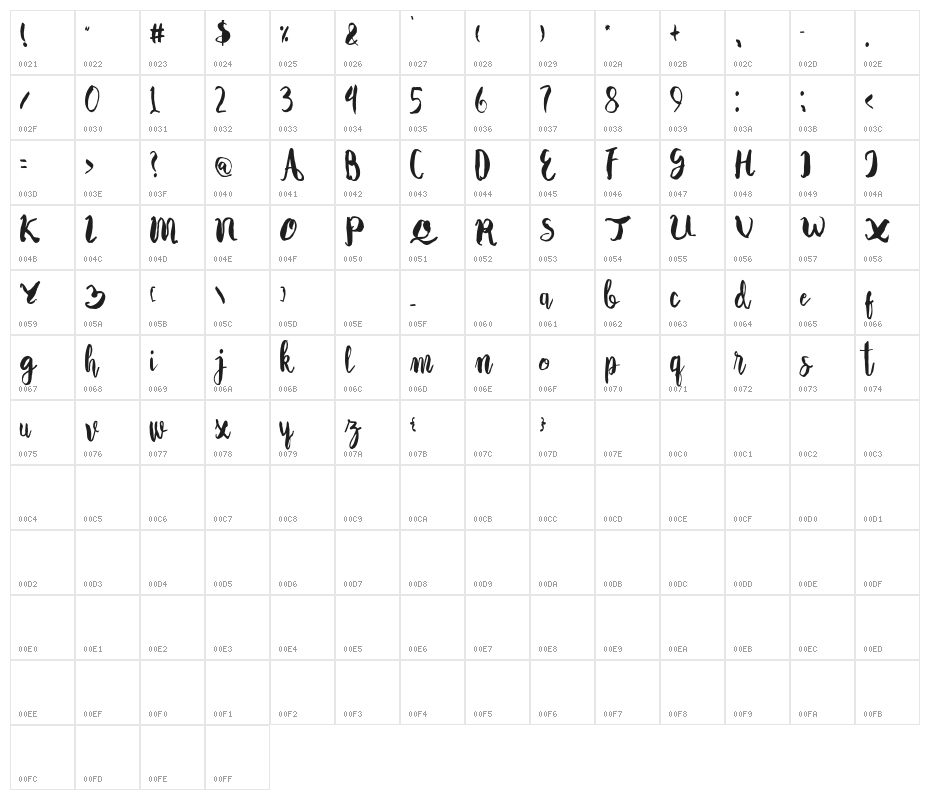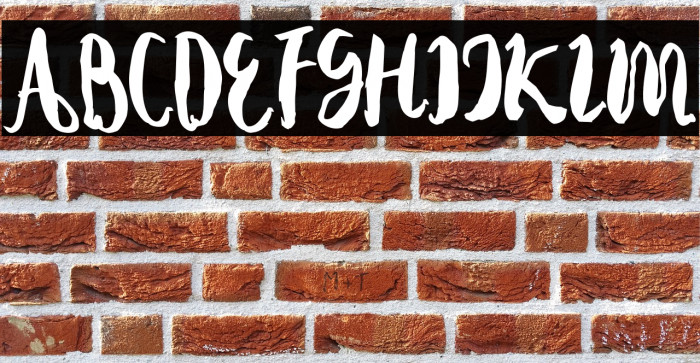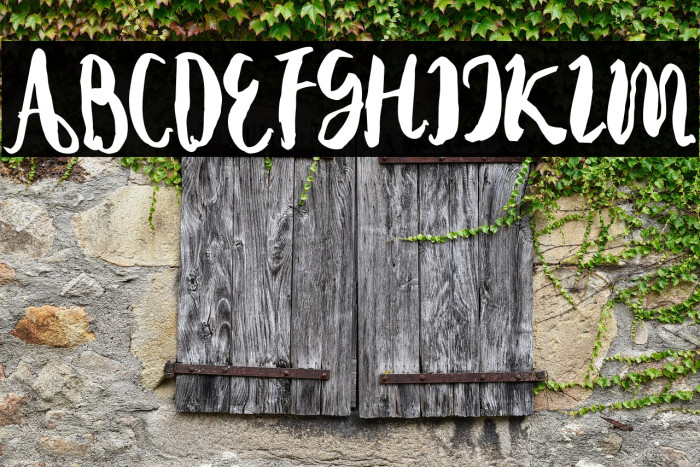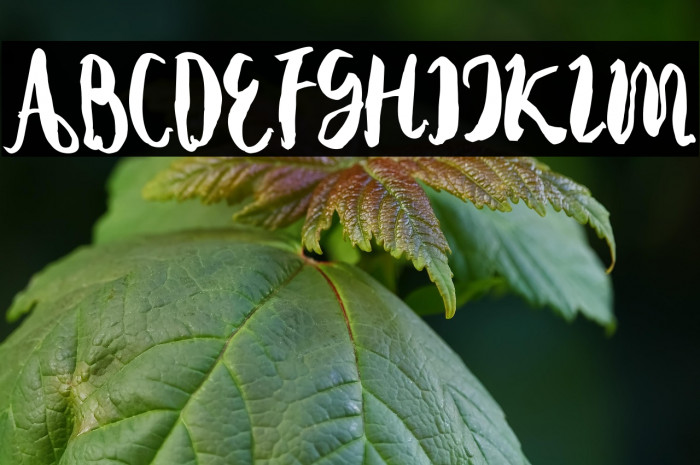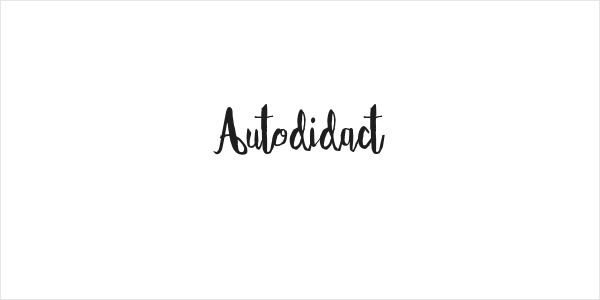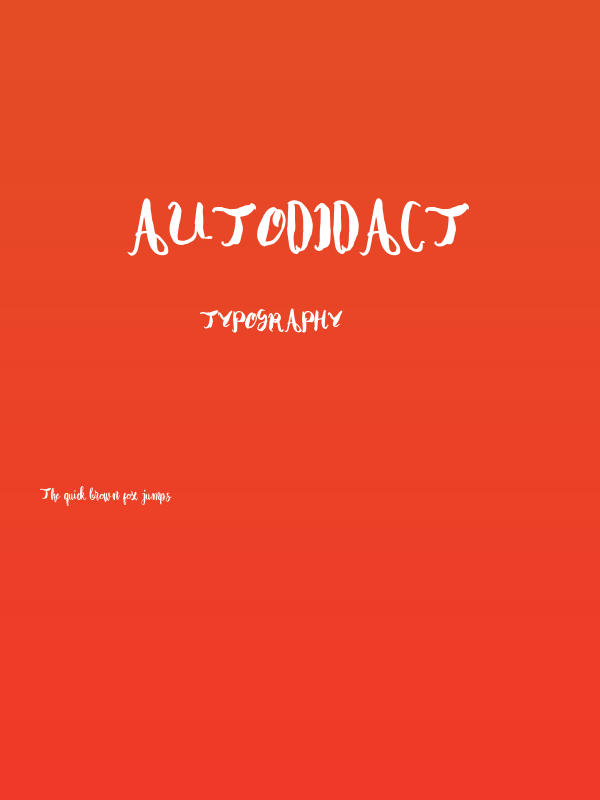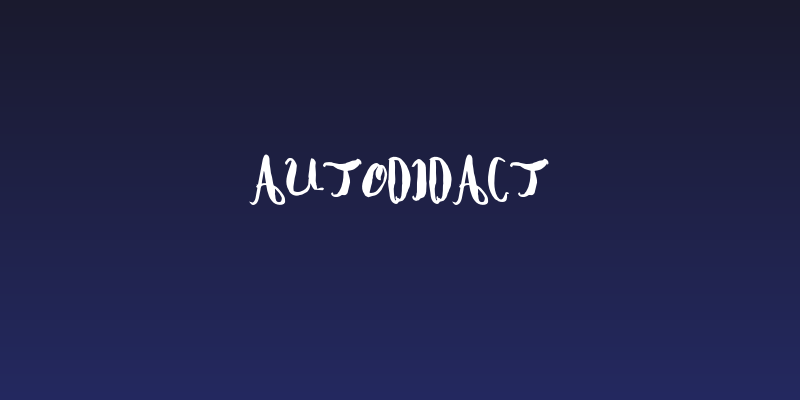
Autodidact Font
Autodidact Description
This font exhibits a bold, expressive style with a handwritten aesthetic. The characters are crafted with a brush-like texture, giving them a dynamic and artistic appearance. The uppercase letters are bold and slightly irregular, adding a sense of movement and creativity. The lowercase letters maintain the same brush-like quality, with some characters featuring unique flourishes and loops. The numbers are consistent with the overall style, maintaining the bold and expressive nature. Special characters are also included, each designed with the same artistic flair. This font is ideal for projects that require a personal touch or a creative, artistic vibe.
| Overall Style | Artistic |
| Use Case | Logos, Headlines, Creative projects |
| Proposed Projects | Ideal for artistic projects, branding, invitations, and creative posters. |